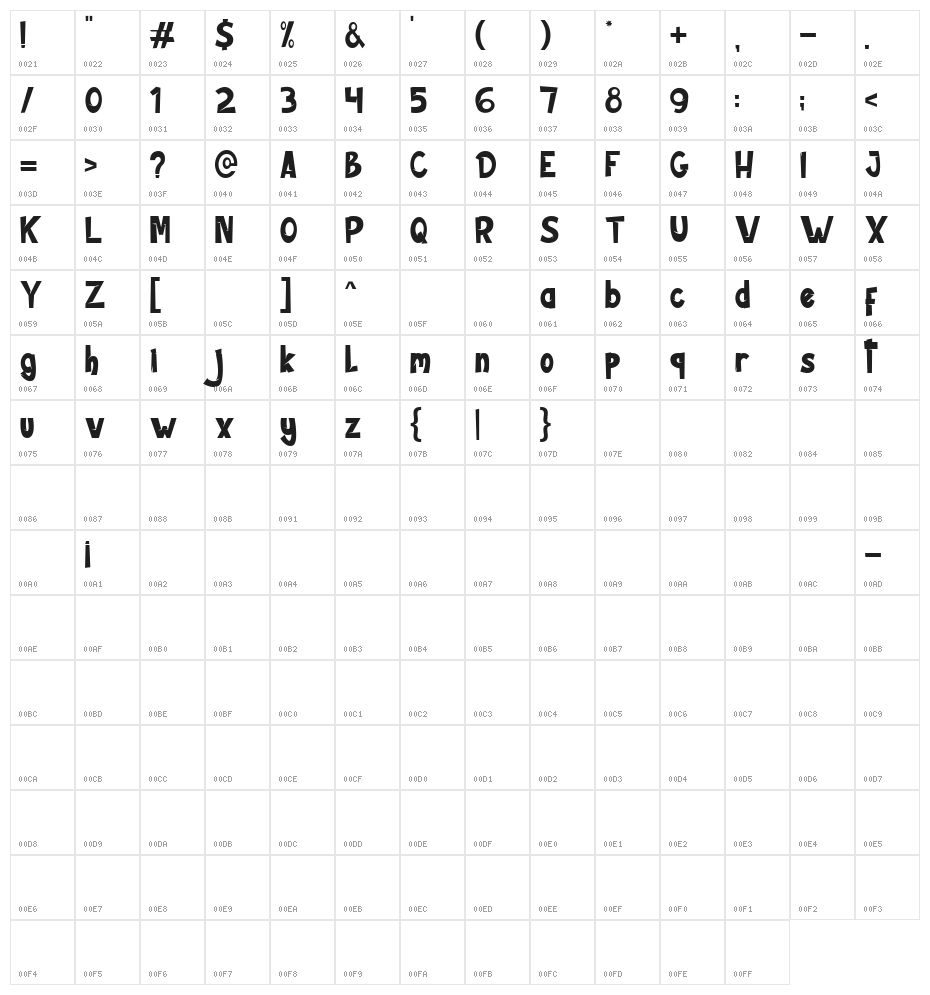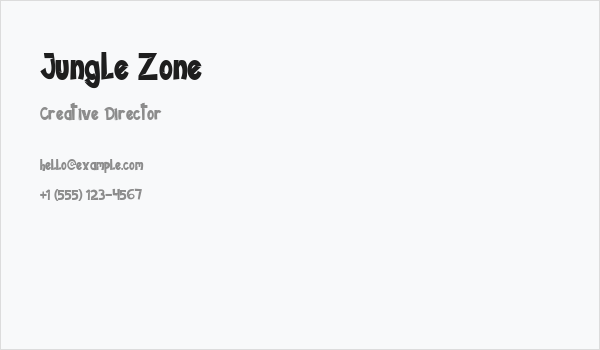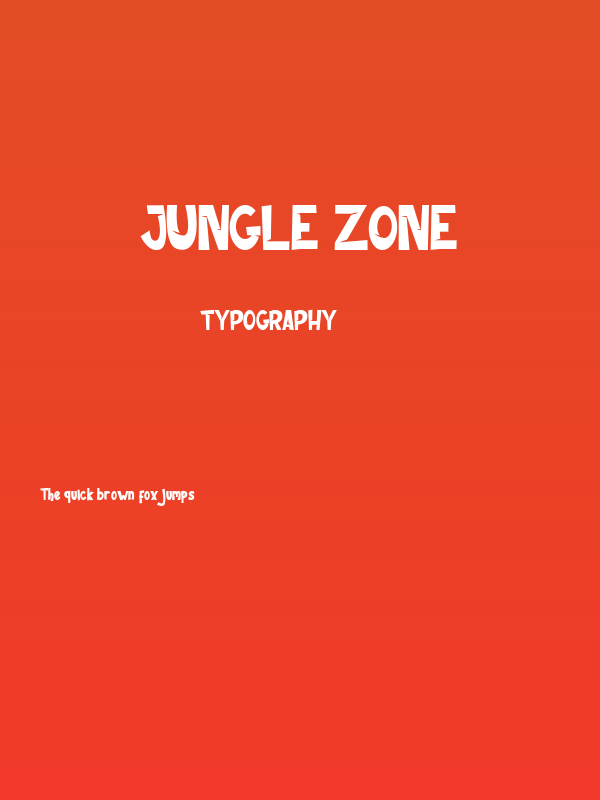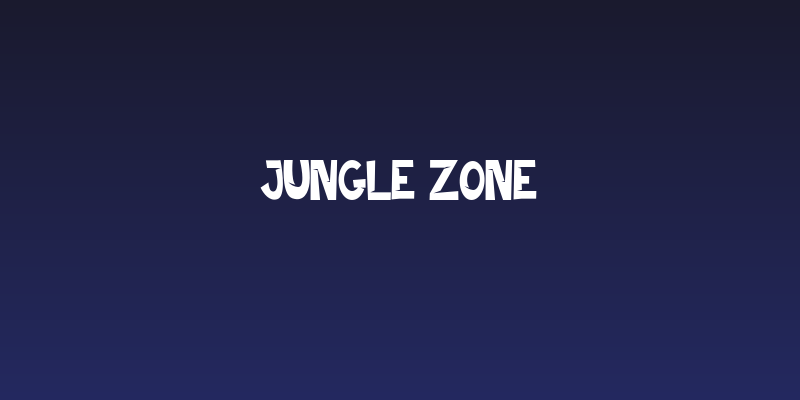
Jungle Zone Font
Jungle Zone Description
This font features a bold and playful design with exaggerated curves and angles, giving it a lively and dynamic appearance. The characters are thick and robust, with a slightly uneven baseline that adds to its whimsical charm. The uppercase and lowercase letters maintain a consistent style, while the numbers and special characters integrate seamlessly with the overall aesthetic. This font's unique style is reminiscent of hand-drawn or cartoonish lettering, making it stand out with its energetic and informal vibe.
| Overall Style | Playful, Cartoonish |
| Proposed Projects | Ideal for children's books, comic strips, playful branding, and event posters. |